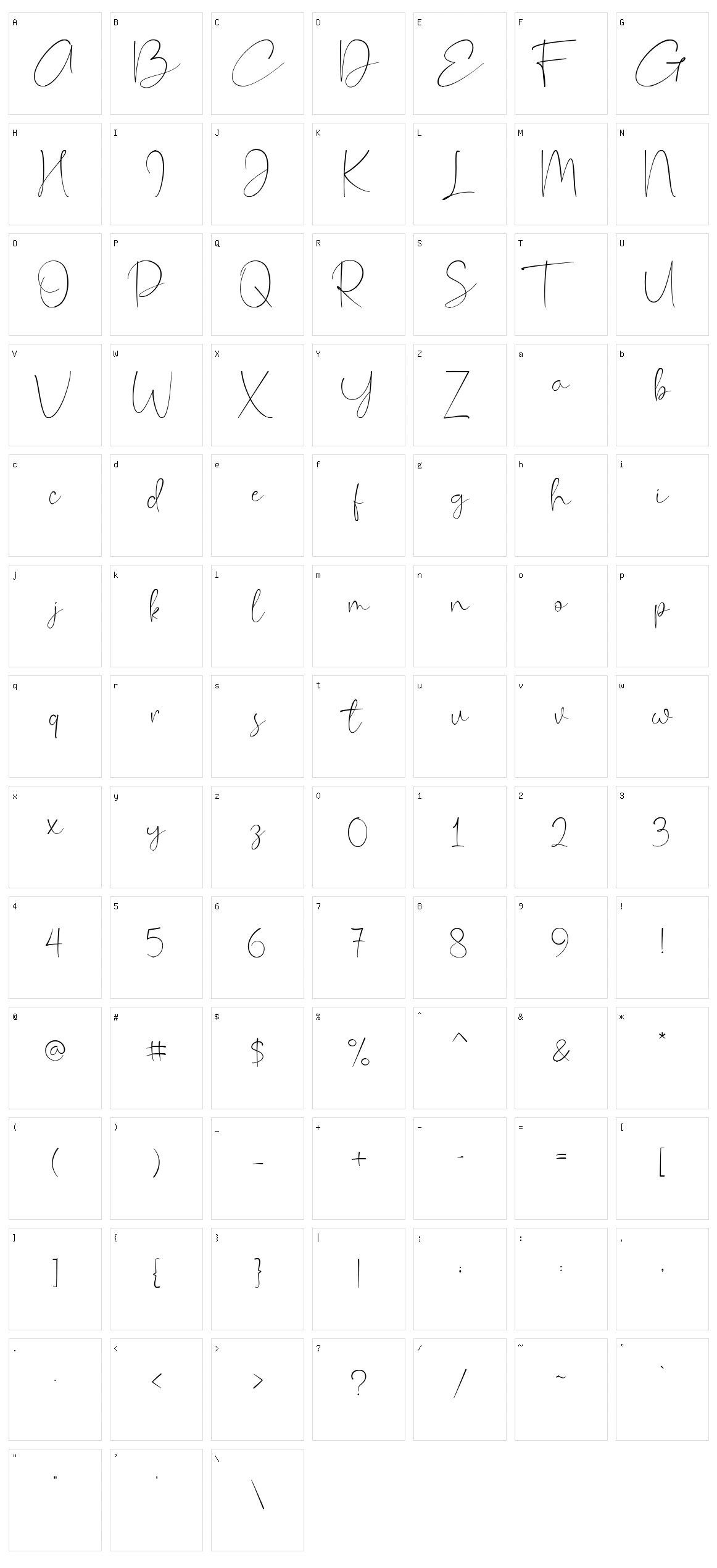
The free font Cassey is carefully designed by 3rieart, showcasing a thoughtful balance of creativity and usability and falls under the Script font style. When you download the ZIP file, it contains only 101.53 KB of font files, making it lightweight and quick to download. Please review the license details below to understand permitted usage and distribution rights. If license information is not available, we recommend using this font for personal projects only or contacting the author directly for commercial usage permissions.